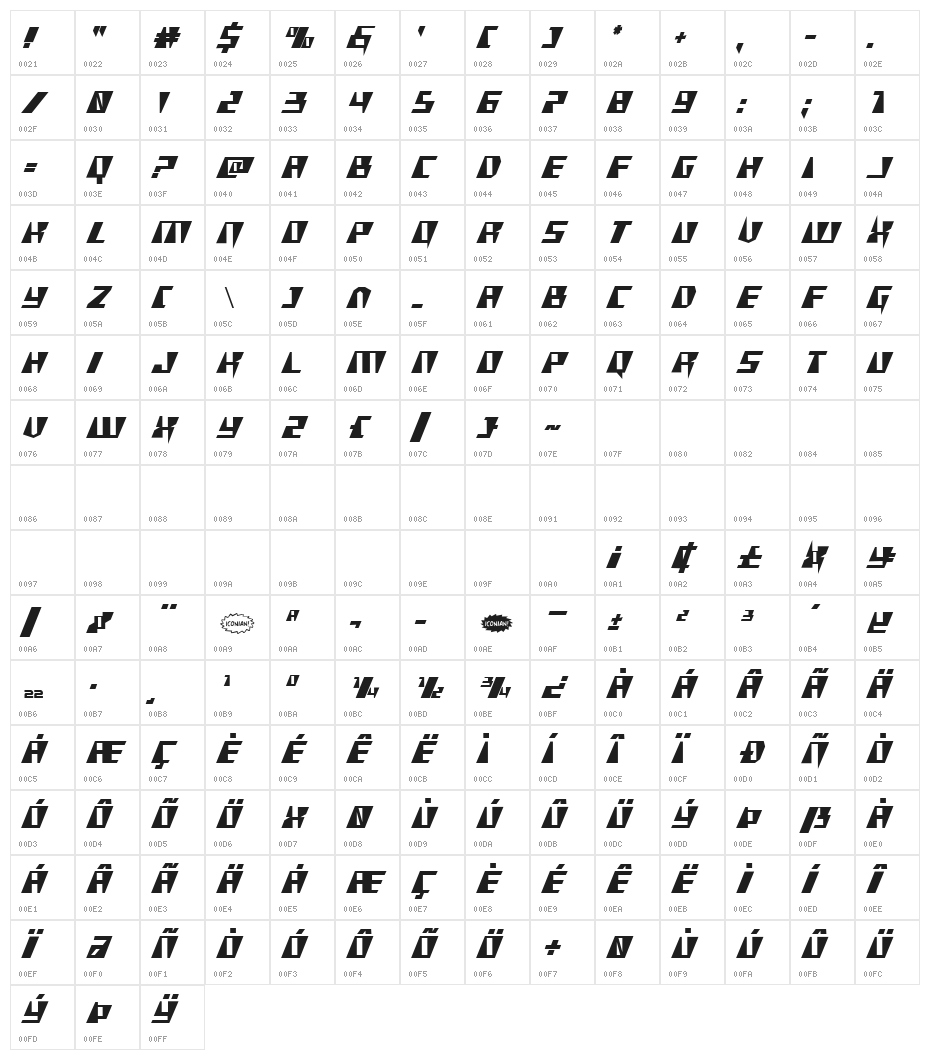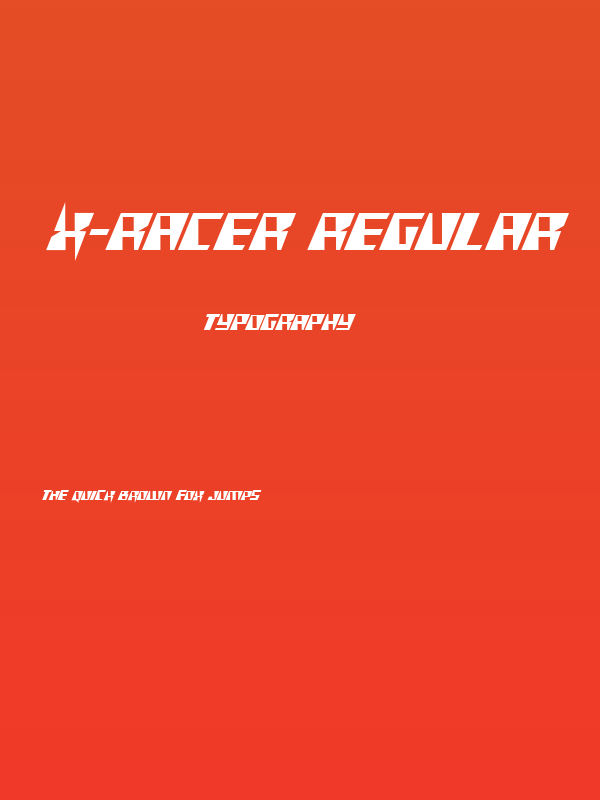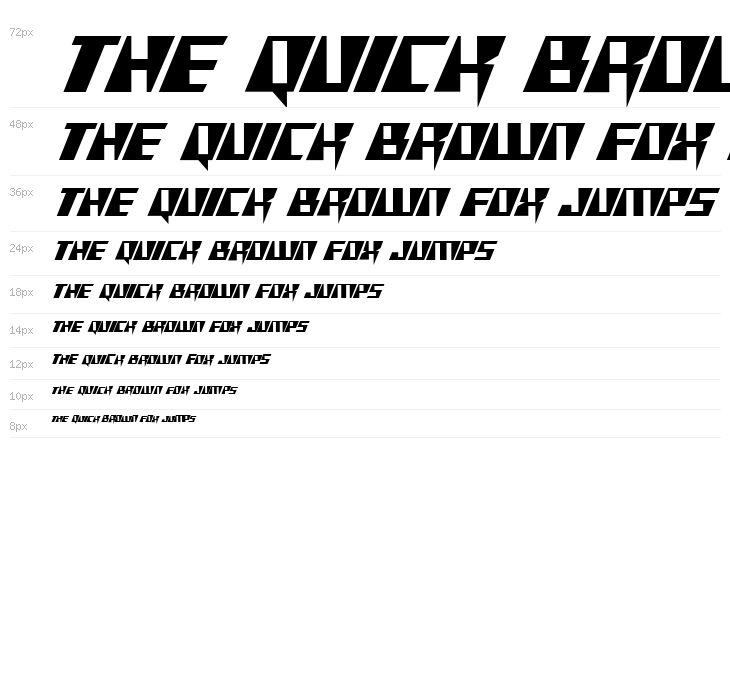
X-Racer Regular Font
X-Racer Regular Description
This font features a bold and angular design, characterized by sharp edges and a futuristic aesthetic. The letters are constructed with a dynamic, slanted style that suggests movement and speed, making it ideal for projects that require a modern and energetic feel. The uppercase and lowercase letters maintain a consistent geometric form, while the numbers and special characters follow the same angular theme. The font's unique style is suitable for eye-catching headlines and branding that demands attention.
Proposed ProjectsIdeal for sports branding, automotive designs, video game titles, and futuristic-themed posters.